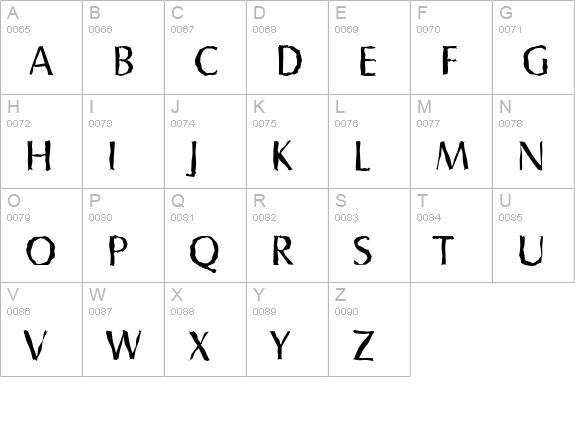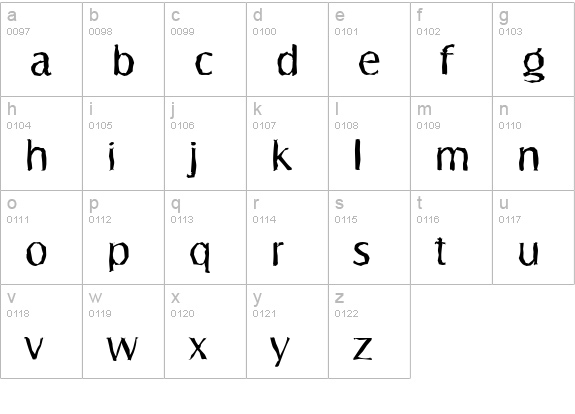
SalzburgRandom-Regular Font Details
SalzburgRandom-Regular is the standard, neutral variant in the SalzburgRandom typeface family \xE2\x80\x94 well suited to general body text, paragraphs, and standard typographic work.
SalzburgRandom-Regular font is a charming and whimsical typeface that adds a touch of playfulness to any design project. Its irregular and hand-drawn style exudes a sense of creativity and individuality, making it perfect for projects that require a unique and personal touch. This font is versatile and can be used for a variety of purposes, from invitations and greeting cards to social media graphics and branding materials. The best part is that SalzburgRandom-Regular font is available for free download at FontsMarket.com. You can easily access this delightful font and enhance your designs with its distinctive charm at no cost. Don't miss out on the opportunity to add a fun and quirky element to your projects with SalzburgRandom-Regular font – download it today and let your creativity shine!